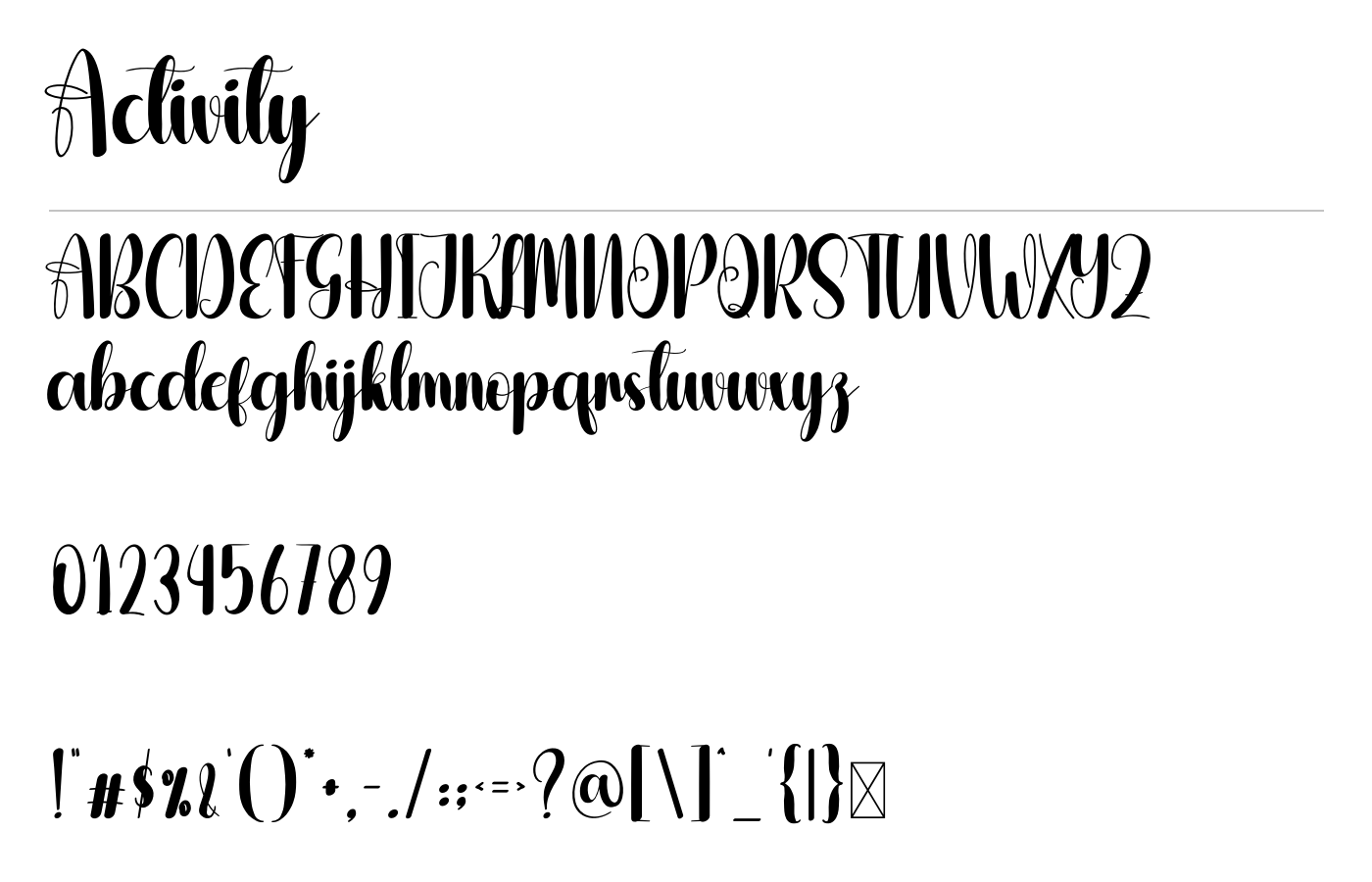
Activity Font is a playful and elegant script typeface with a modern calligraphic feel, featuring smooth, flowing strokes and charming flourishes on capital letters. Its bold weight combined with high contrast and stylish swashes makes it perfect for creative branding, invitations, and eye-catching headlines that require a lively yet refined look. This font works best where a touch of sophistication meets casual fun, ideal for fashion, lifestyle, and artistic projects.
Activity Font